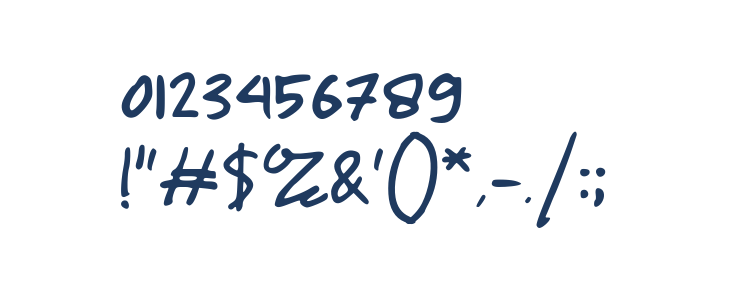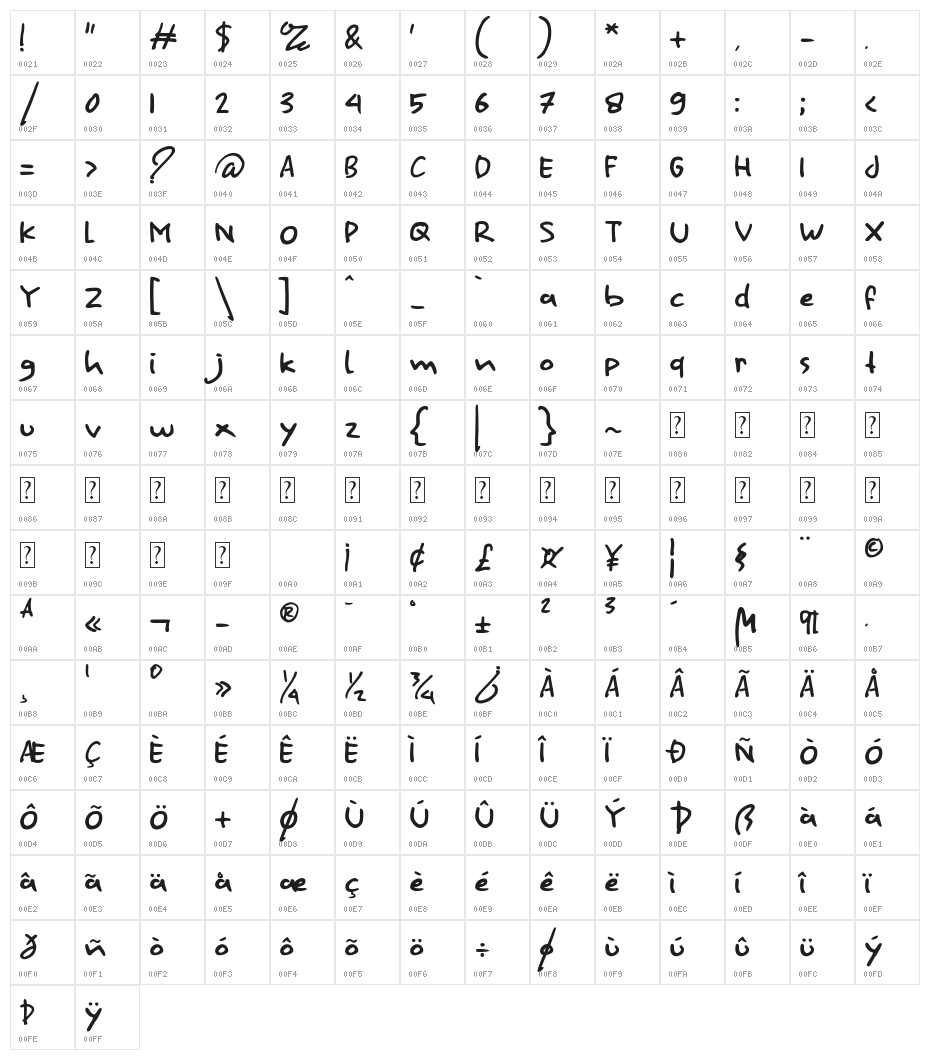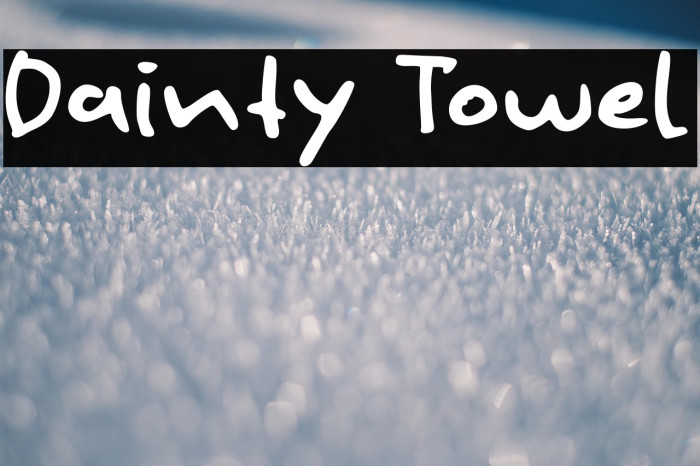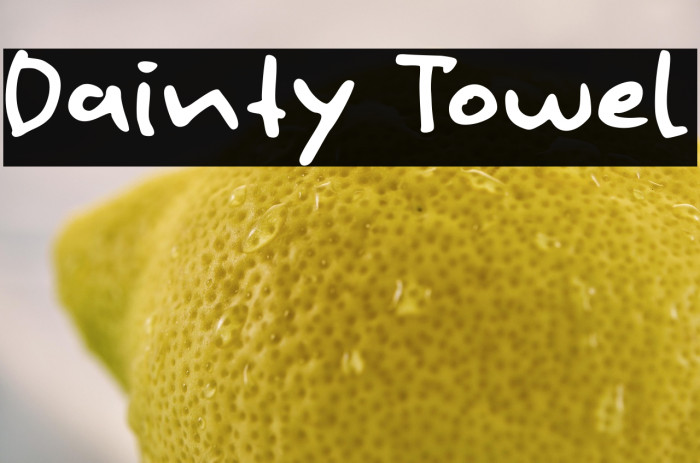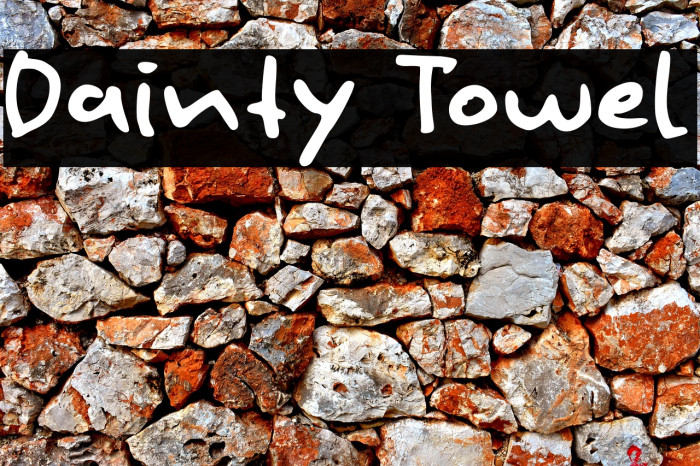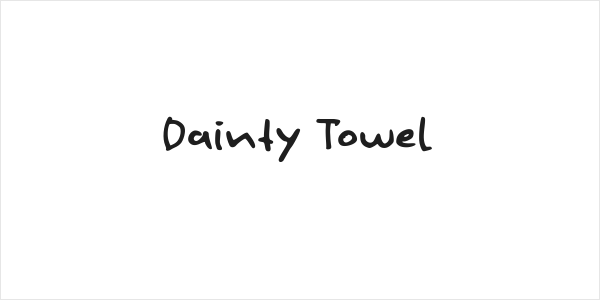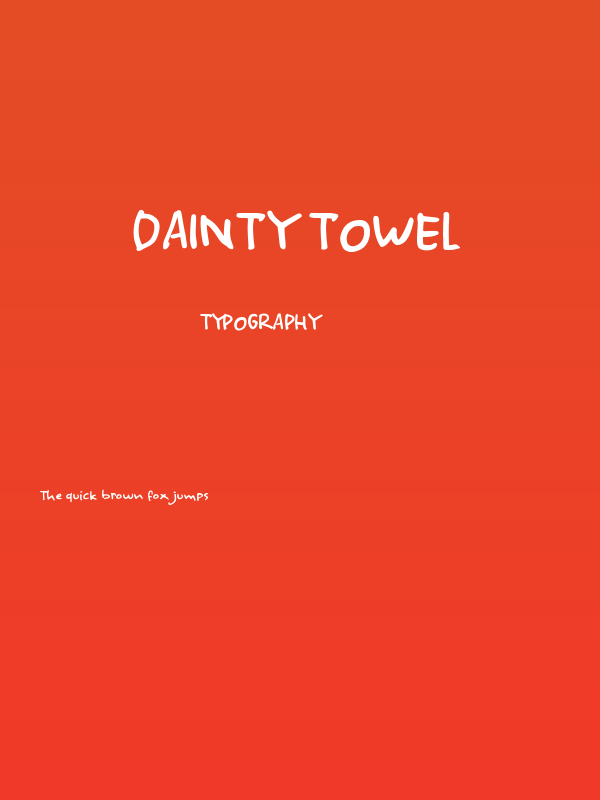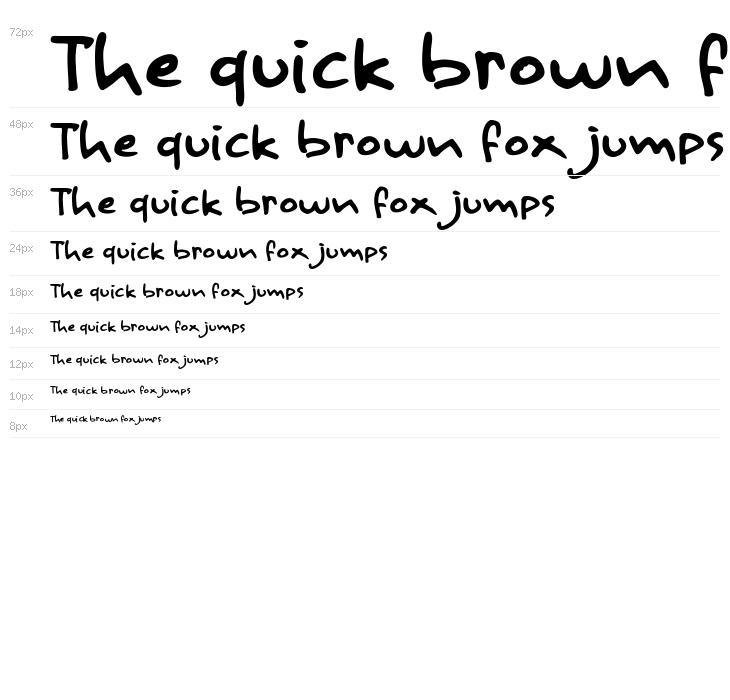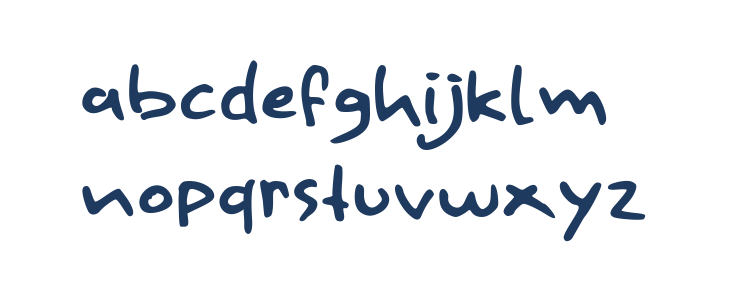
Dainty Towel Font
Dainty Towel Description
This font exhibits a playful and casual handwritten style, characterized by its smooth, flowing curves and slightly irregular letterforms. The strokes are consistent in width, providing a uniform appearance that enhances readability while maintaining a relaxed aesthetic. The uppercase and lowercase letters are well-balanced, with a slight slant that adds to the informal feel. The numerals and special characters are designed to match the overall style, ensuring cohesion across all text elements. This font's approachable and friendly nature makes it suitable for a variety of creative projects.
| Use Case | Logos, Headlines, Informal text |
| Proposed Projects | Ideal for greeting cards, invitations, personal branding, and informal digital content. |